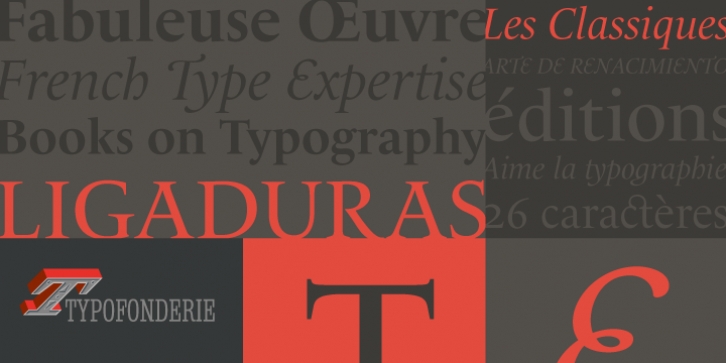
Le Monde Livre Classic Std downloadDesigner: Jean François Porchez
Publisher: Typofonderie
Le Monde Livre Classic is a Renaissance style typeface that works beautifully on text and titling settings.
Designed as an extension of Le Monde Livre, this family distinguishes itself by its historical forms and by its stylistic effects. Le Monde Livre Classic’s italics follow the models of the Renaissance and feature italic capital and lowercase swashes. In 2012, this family was fully rebuilt from scratch.
Le Monde Livre Classic works beautifully for book typography, magazine settings from text to display. This family brings more exuberance in your designs.